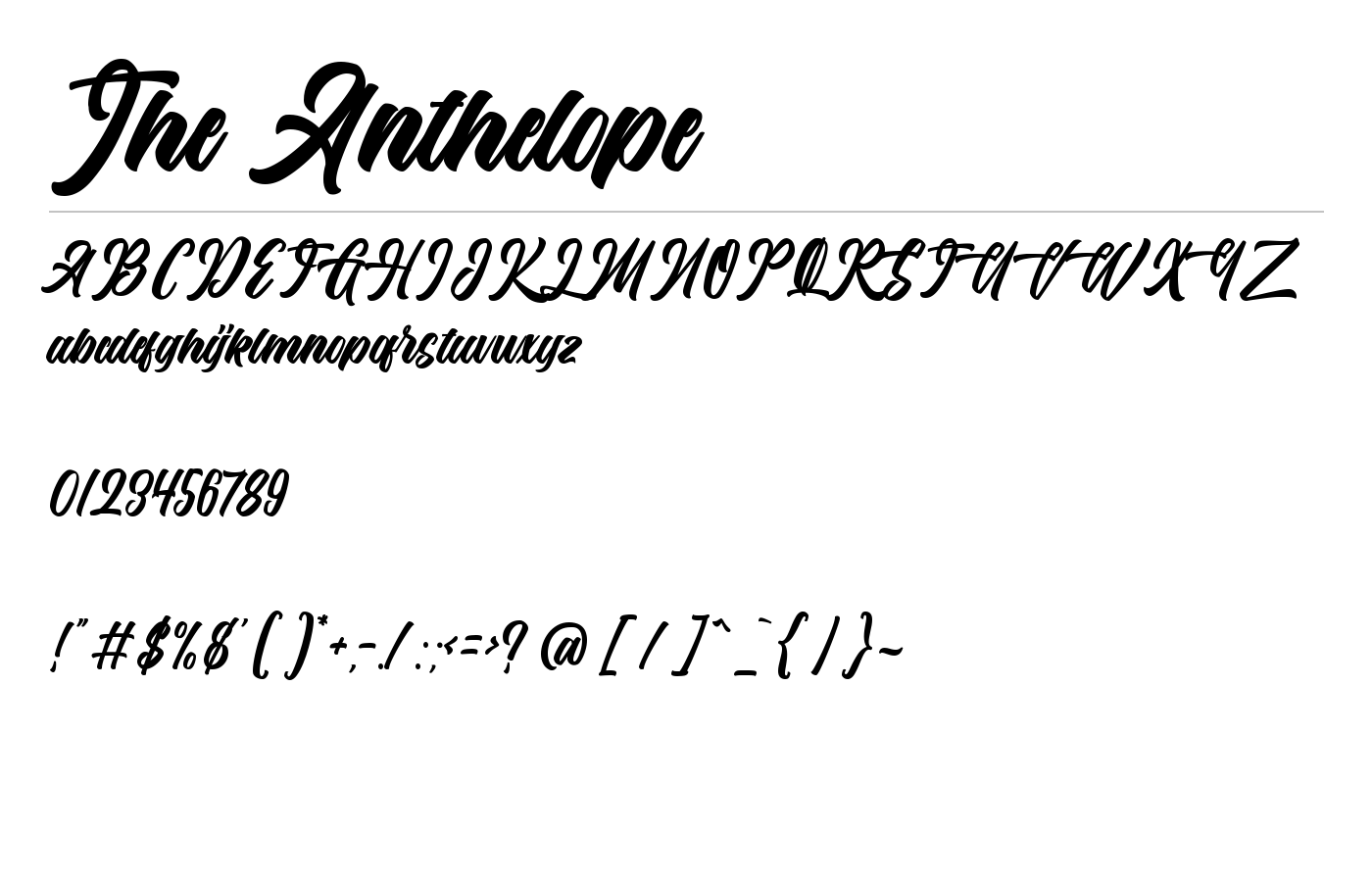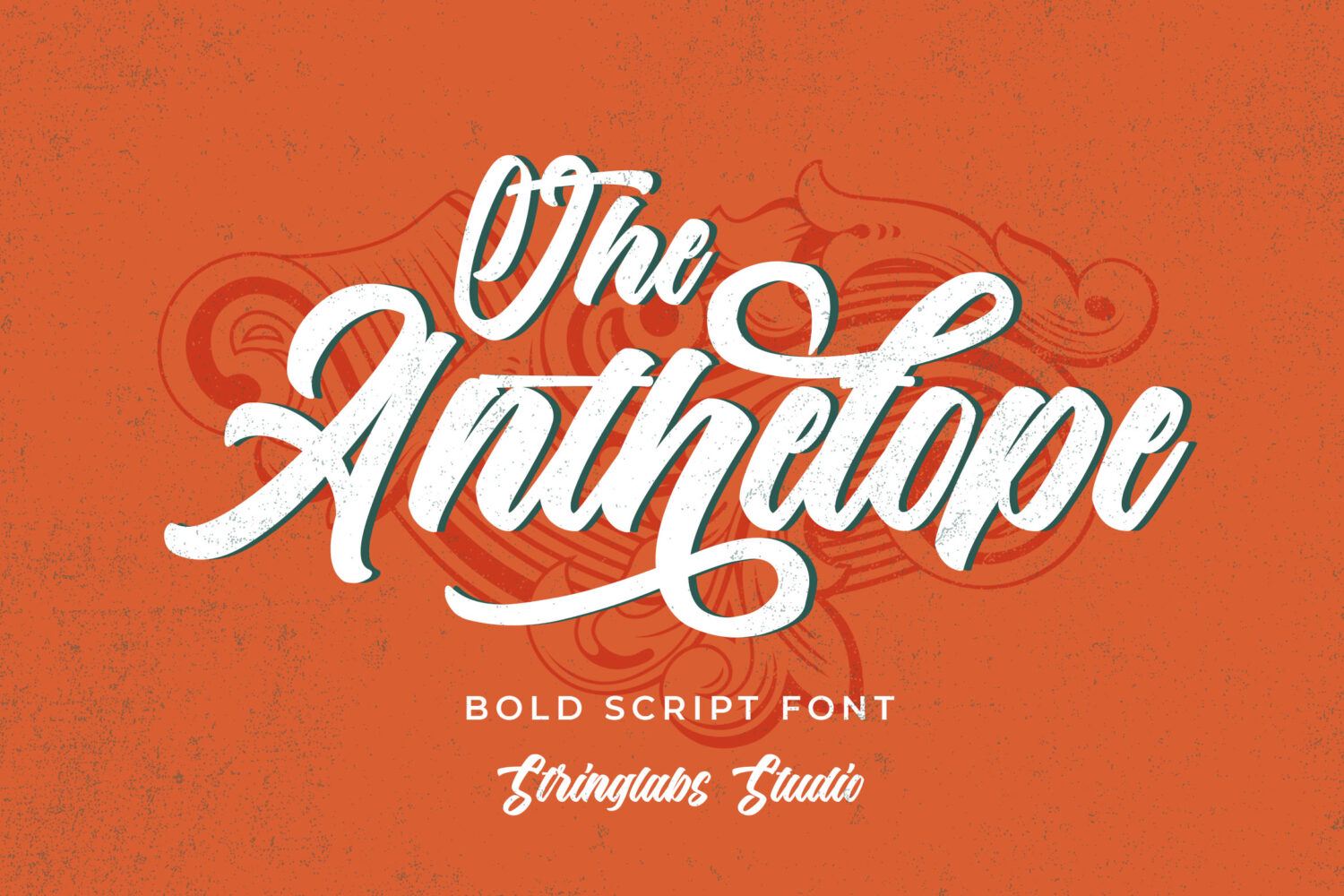
The Anthelope is a bold, script-style font with a lively and elegant handwritten feel. Its smooth, flowing strokes and slight slant give it a dynamic and personal touch, making it ideal for branding, invitations, and creative headlines where a stylish, sophisticated impression is desired. This font works well in contexts that seek to combine elegance with a casual, approachable vibe.
The Anthelope
About The Anthelope